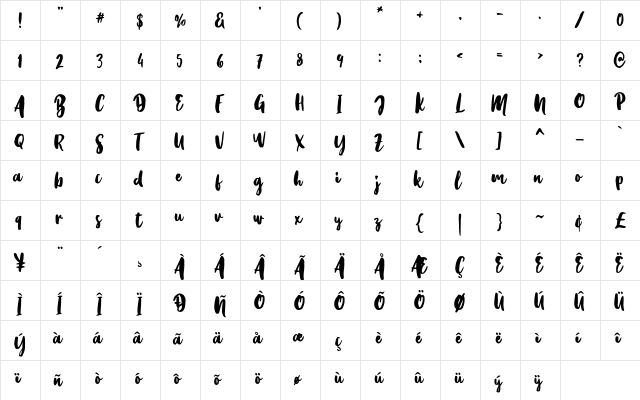
Kristale Script Regular
Design Context for Kristale Script Typeface
Kristale Script flows with the natural rhythm of handwritten lettering, making it ideal for designs that call for warmth and personal expression.
Font Pairing: Combine Kristale Script with a simple geometric sans for maximum contrast — the tension between flowing curves and clean structure is a classic typographic pairing.
Pro Tip: Pair Kristale Script with a clean sans-serif for supporting text. The contrast between fluid script and geometric structure creates an elegant typographic hierarchy.